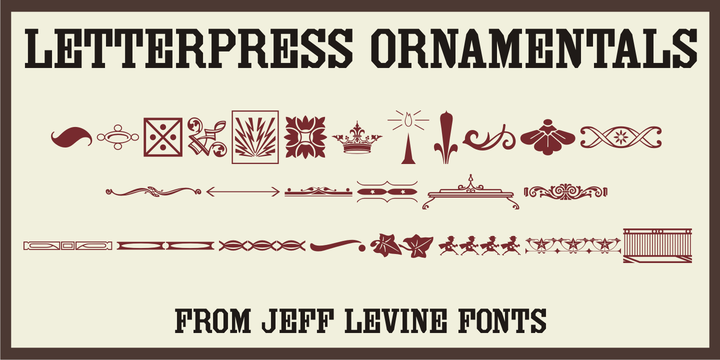
Letterpress Ornamentals JNL
by Jeff Levine
Letterpress Ornamentals JNL collects twenty-six decorative embellishments, corner pieces, borders, separators and ornaments for enhancing your print project.